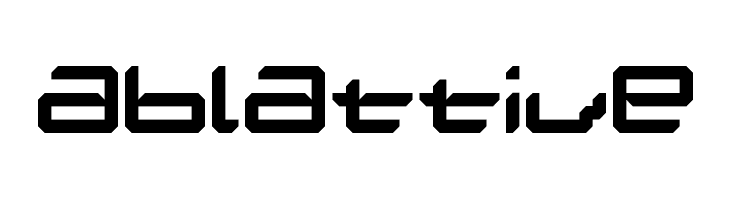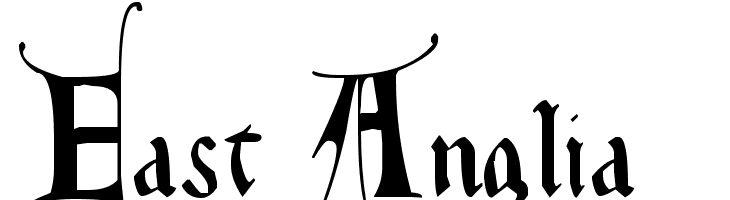
A futuristic, geometric font with a digital aesthetic.
A bold, gothic-style font with sharp edges and intricate curves, perfect for horror or fantasy themes.
A bold, slab serif font with a classic yet modern appeal.
An ornate, calligraphic font with elegant swirls and flourishes.
A bold, italicized font with a modern and assertive style.
A playful, handwritten font with a whimsical and casual style.
A bold, horror-themed font with a dripping effect, perfect for spooky designs.
A bold, italic, and expanded font with a futuristic and angular design.